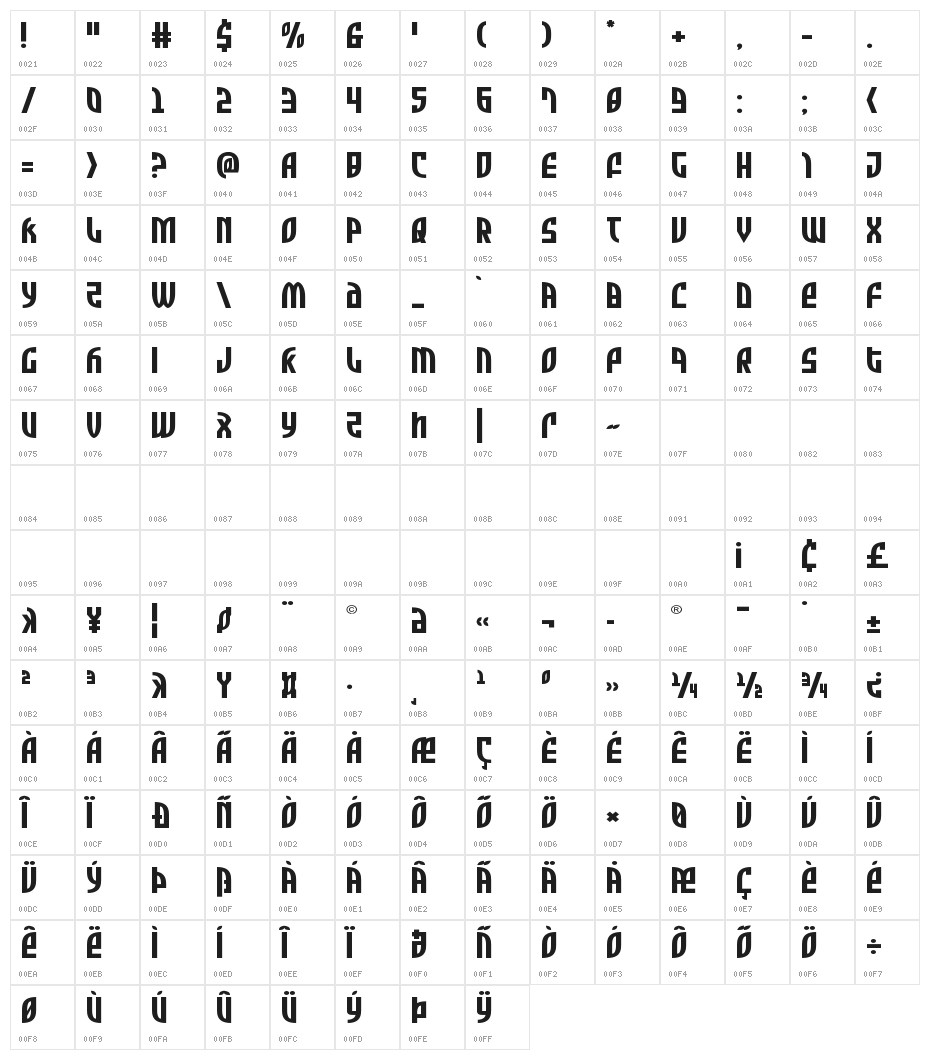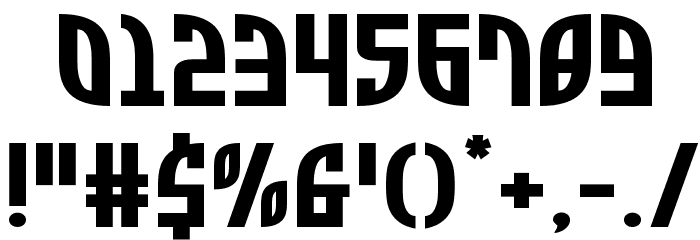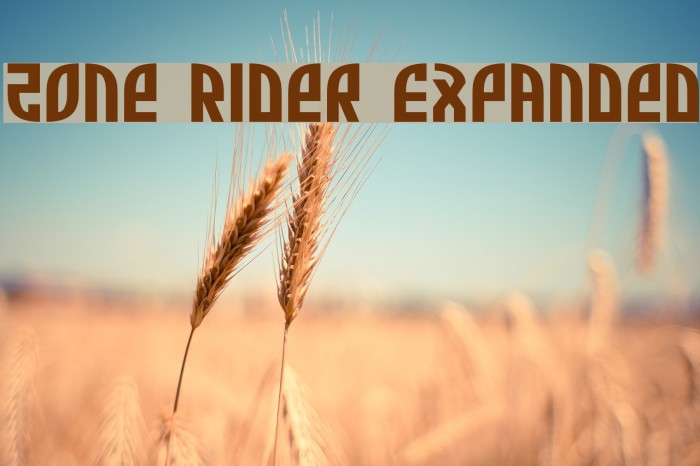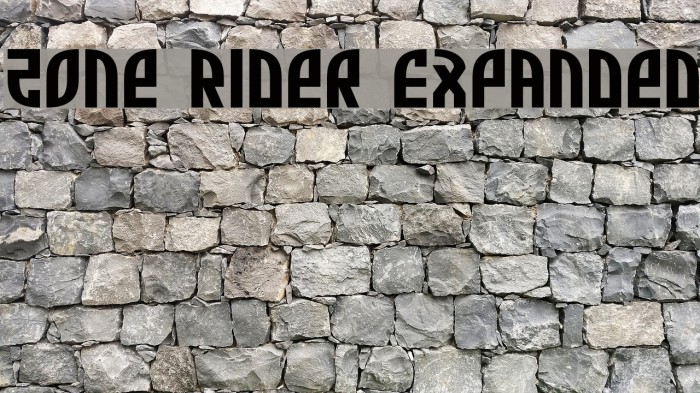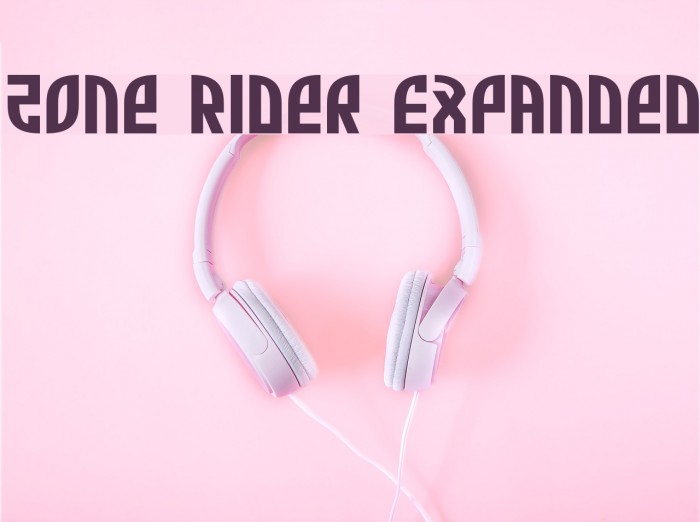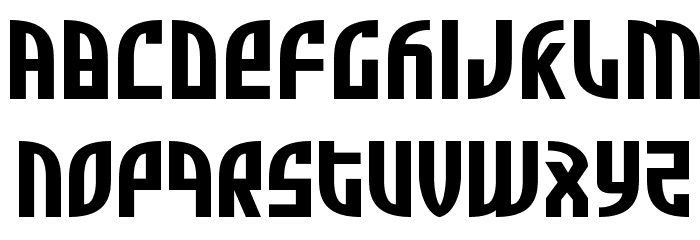
Zone Rider Expanded Font
Zone Rider Expanded Description
This font features a bold and futuristic design with strong geometric shapes and a distinct expanded width. The characters are crafted with a modern aesthetic, showcasing a unique blend of sharp angles and smooth curves. The uppercase and lowercase letters maintain a consistent style, while the numbers and special characters complement the overall design. The font's boldness and expanded form make it ideal for attention-grabbing headlines and impactful visual statements.